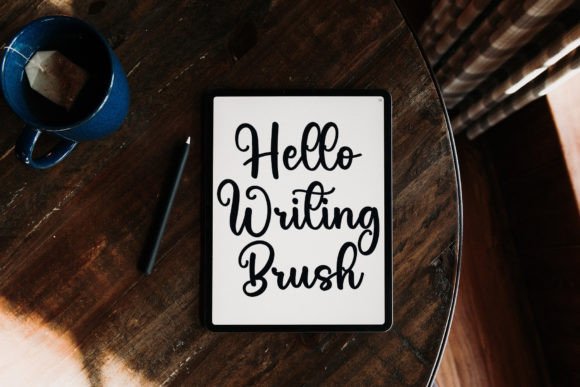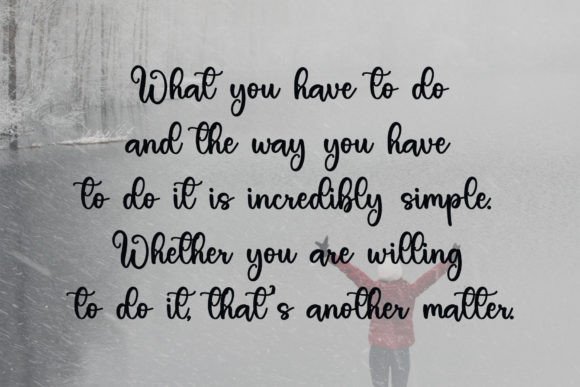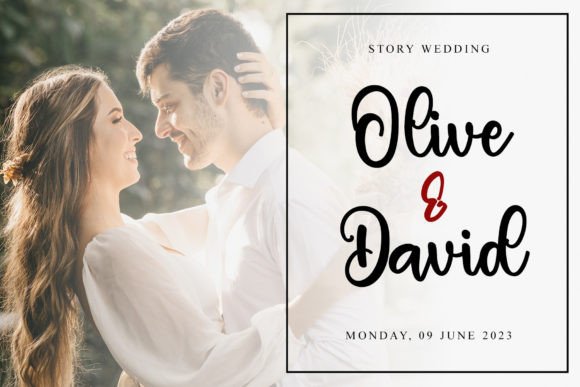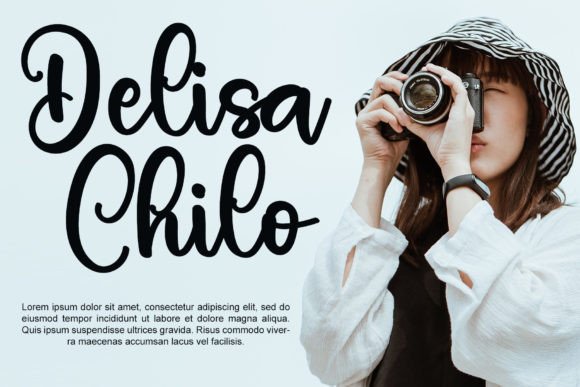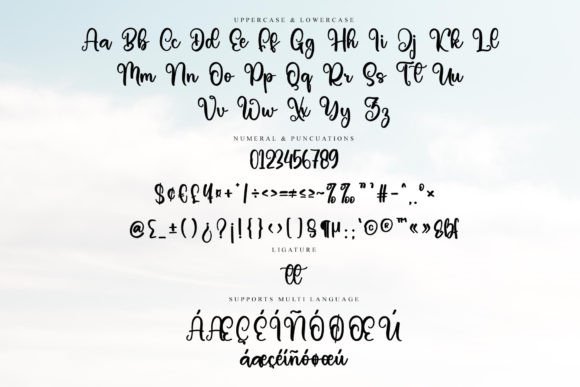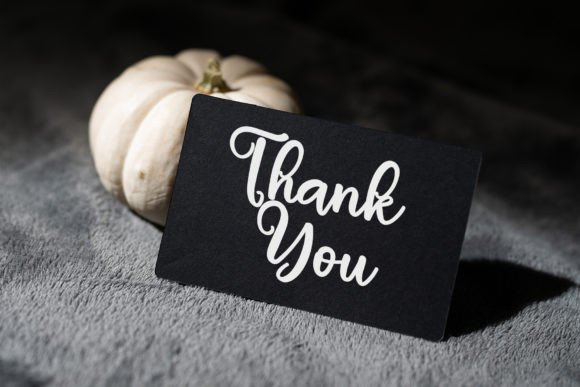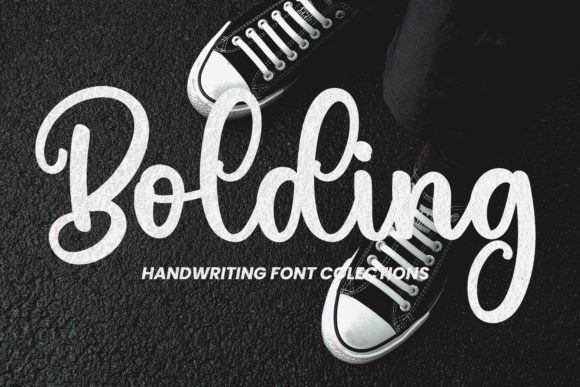
Bolding Font: Elevate Your Designs with a Sweet and Cursive Handwritten Style
Are you looking for a font that can add a touch of elegance and romance to your designs? Look no further than Bolding Font! This beautiful, sweet, and cursive handwritten font is perfect for a variety of design projects, from branding and logos to wedding invitations and greeting cards. In this article, we’ll explore the features and benefits of Bolding Font, and show you how to make the most of this gorgeous font in your designs.
What is Bolding Font?
Bolding Font is a modern, handwritten font that features a unique and elegant cursive style. With its smooth lines and flowing curves, this font is perfect for adding a touch of sophistication and luxury to your designs. Whether you’re creating a brand identity, designing a wedding invitation, or crafting a marketing promotion, Bolding Font is sure to impress.
Key Features of Bolding Font
• Sweet and Cursive Handwritten Style: Bolding Font features a beautiful, cursive handwritten style that’s perfect for adding a touch of elegance to your designs.
• Versatile: This font is versatile and can be used on a variety of design projects, from branding and logos to wedding invitations and greeting cards.
• Easy to Read: Despite its elegant and cursive style, Bolding Font is easy to read, making it perfect for body text and headlines.
• Luxurious Feel: Bolding Font has a luxurious feel that’s perfect for adding a touch of sophistication to your designs.
Benefits of Using Bolding Font
So why choose Bolding Font for your designs? Here are just a few benefits of using this gorgeous font:
• Adds a Touch of Elegance: Bolding Font adds a touch of elegance and sophistication to your designs, making it perfect for high-end brands and luxury products.
• Perfect for Wedding and Event Designs: This font is perfect for wedding invitations, event branding, and other designs where you want to create a romantic and memorable impression.
• Great for Logos and Branding: Bolding Font is also great for logos and branding, as it can help to create a unique and memorable brand identity.
• Easy to Pair with Other Fonts: This font is easy to pair with other fonts, making it versatile and easy to use in a variety of design projects.
Design Ideas Using Bolding Font
So what can you create with Bolding Font? Here are just a few design ideas to get you started:
• Wedding Invitations: Create beautiful wedding invitations with Bolding Font, perfect for formal or informal weddings.
• Branding and Logos: Use Bolding Font to create a unique and memorable brand identity for your business or product.
• Greeting Cards: Create gorgeous greeting cards for special occasions, such as birthdays, anniversaries, and holidays.
• Fashion Lookbooks: Use Bolding Font to create stunning fashion lookbooks that showcase your products in style.
• Marketing Promotions: Add a touch of elegance to your marketing promotions with Bolding Font, perfect for luxury products and high-end brands.
Tips for Using Bolding Font
Here are a few tips for using Bolding Font in your designs:
• Use it Sparingly: While Bolding Font is gorgeous, it’s best to use it sparingly to avoid overwhelming your design.
• Pair it with Other Fonts: Experiment with pairing Bolding Font with other fonts to create a unique and interesting design.
• Adjust the Size and Color: Adjust the size and color of Bolding Font to create visual interest and hierarchy in your design.
Bolding Font is a beautiful and elegant handwritten font that’s perfect for adding a touch of sophistication and luxury to your designs. With its sweet and cursive style, this font is versatile and can be used on a variety of design projects, from branding and logos to wedding invitations and greeting cards. Whether you’re a designer or crafter, Bolding Font is sure to become a favorite in your font collection.